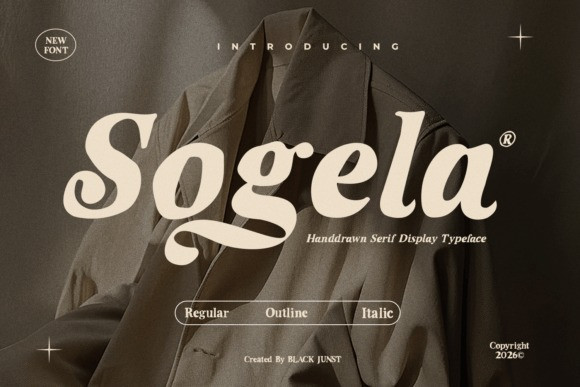
Sogela Font is a beautifully crafted handdrawn serif display font designed to bring elegance, warmth, and a unique artistic touch to your projects. With its smooth curves, soft serif details, and distinctive character shapes, Sogela delivers a premium and eye-catching look that stands out instantly. This typeface perfectly blends modern luxury with a handcrafted feel, making it highly versatile for various creative needs.
Whether you’re building a strong brand identity or creating stunning headlines, Sogela adds a sophisticated and memorable impression to every design.